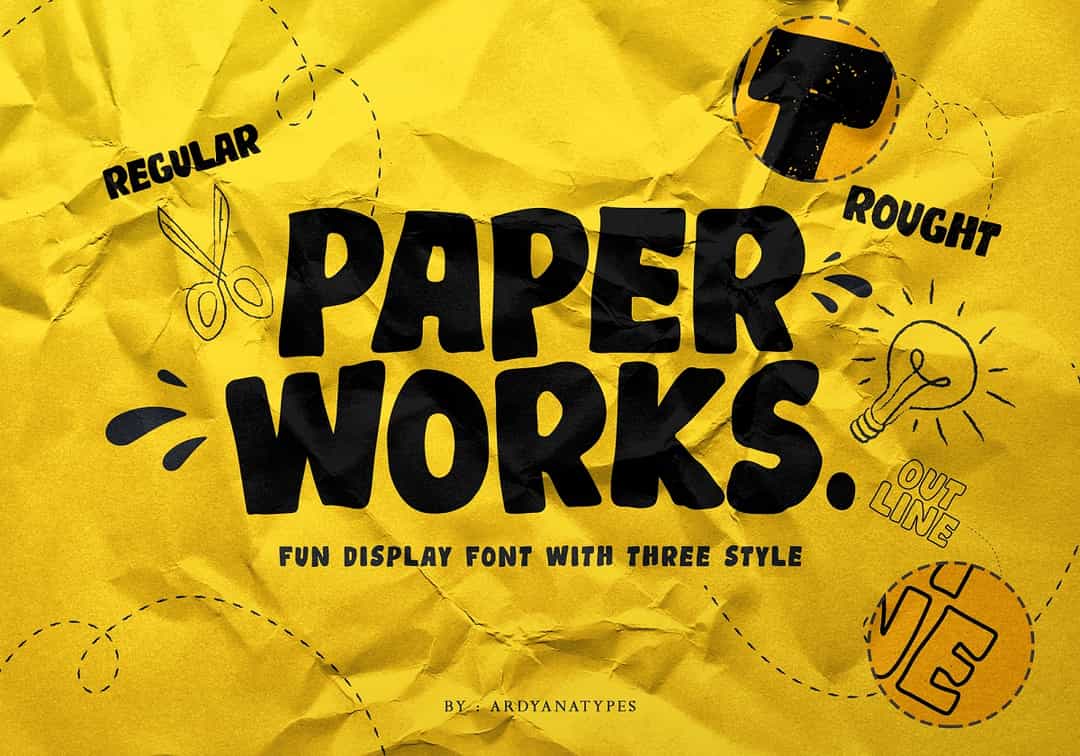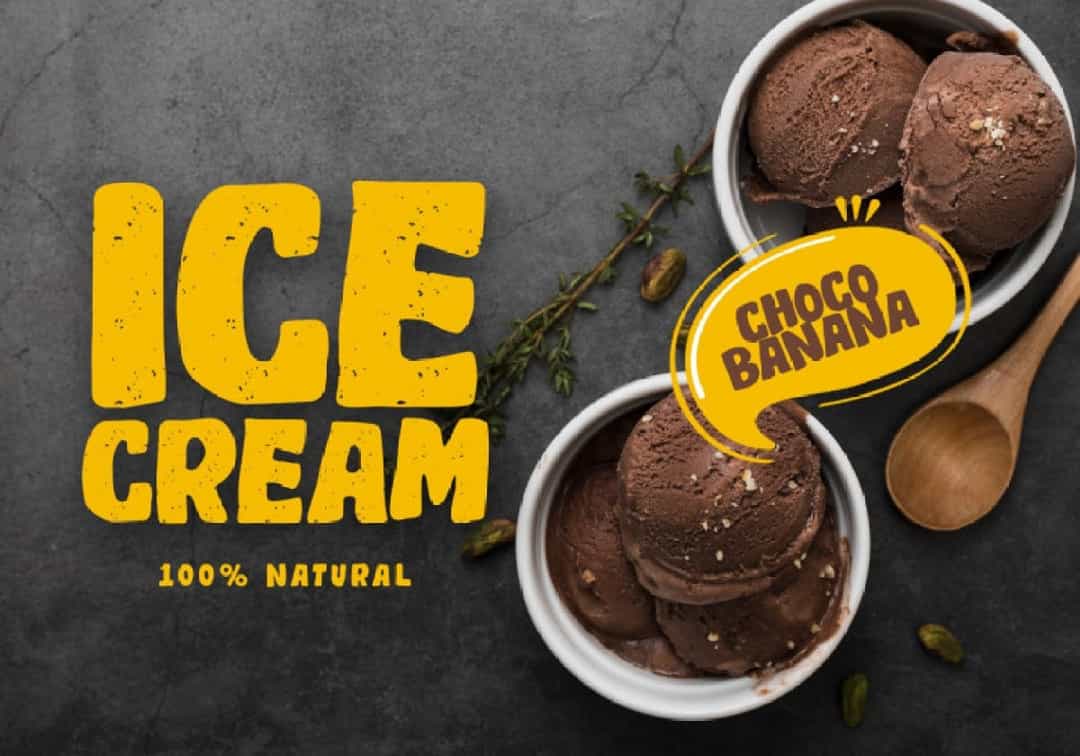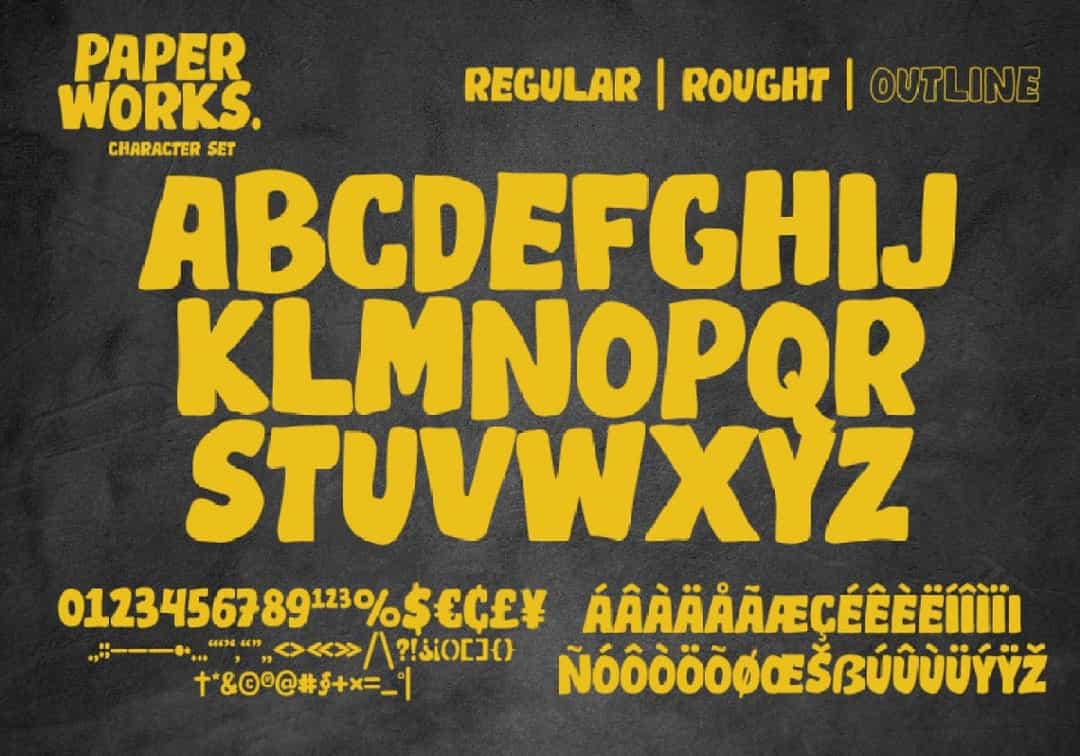
Peper Works font was designed to give a unique striking, distinctive, and striking style to each design. It is handwritten designs that make it appropriate for titles or designs that are displayed. Paper Works come in three distinct styles that include Regular Outline, Regular, and Rought each designed to give different looks but still retain its appearance and feel.